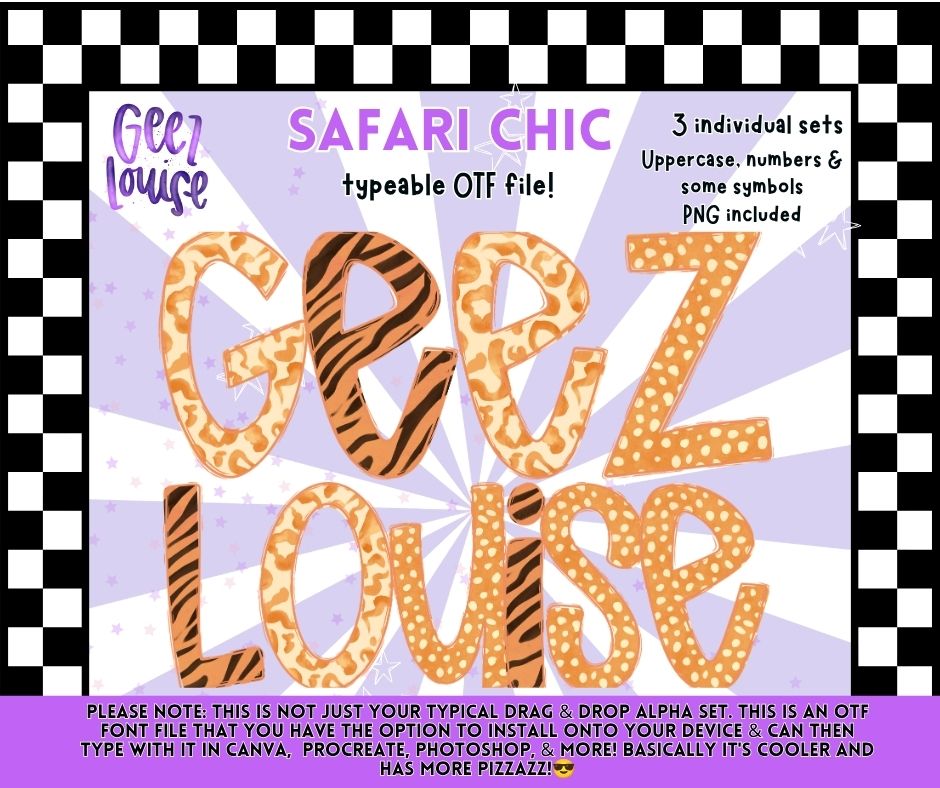
Safari Chic Alpha Font Bundle OTF | Safari Animal Print Alphabet PNG | Typeable Font Bundle
π¦π Bring the wild side to your designs with Safari Chic Alpha Bundle! This stylish collection includes 3 coordinating animal print alphabets inspired by classic safari patterns. Whether you're creating boutique apparel, classroom projects, baby safari themes, or trendy sublimation designs, this bundle makes it easy to add bold personality.
Safari Styles Included:
π¦ Giraffe Print
π
Tiger Stripe
π Leopard Print